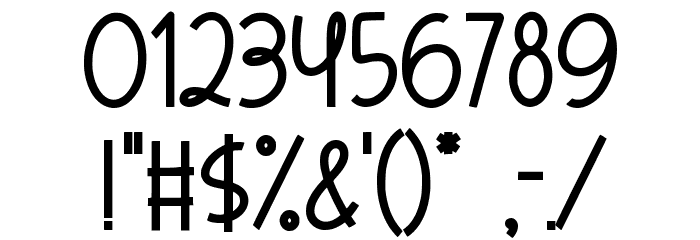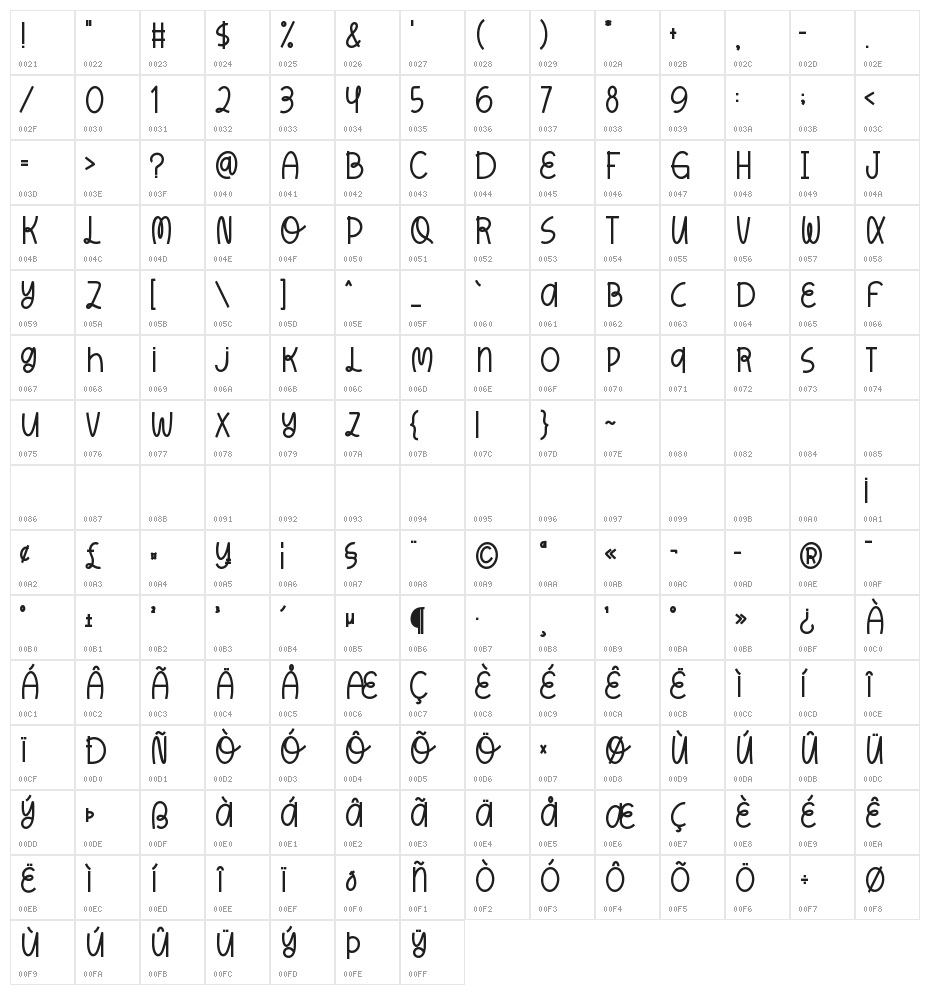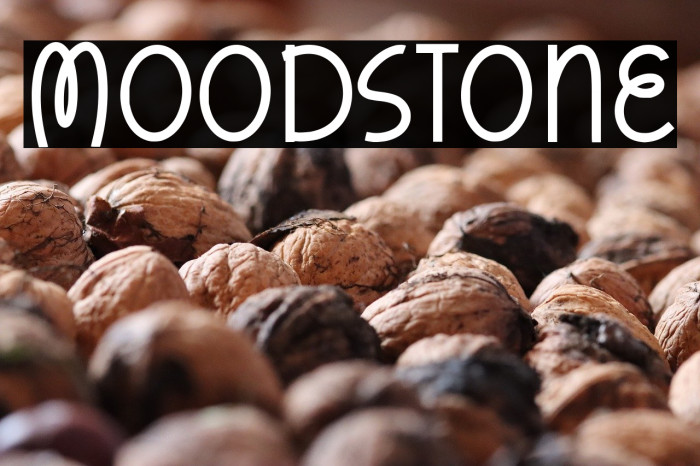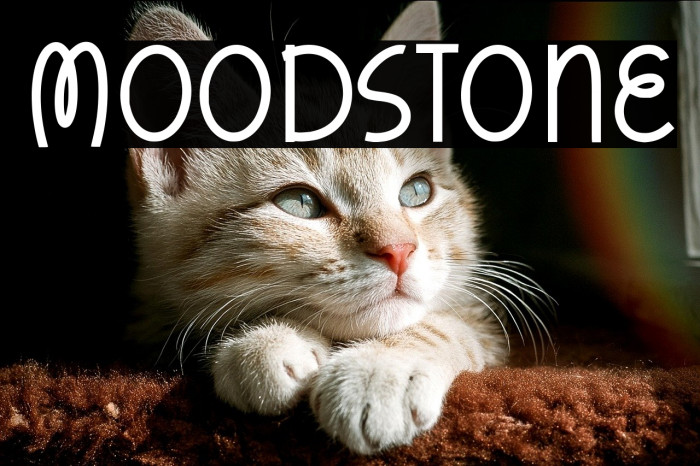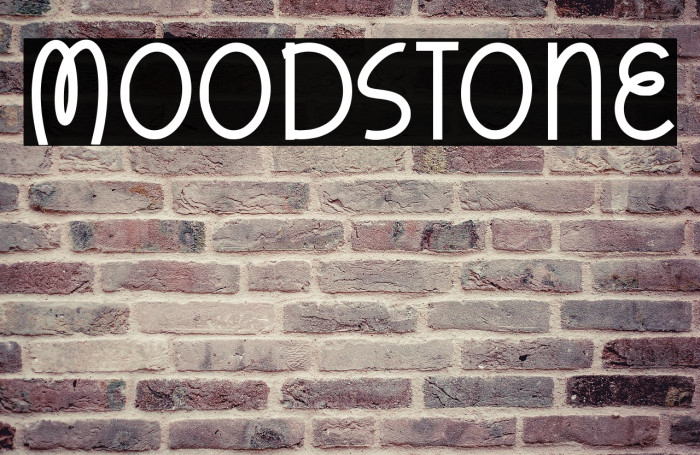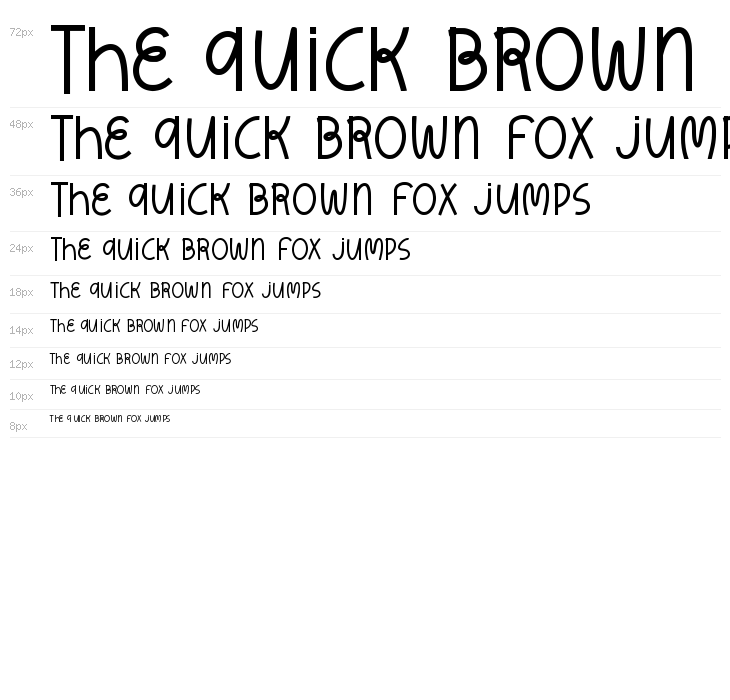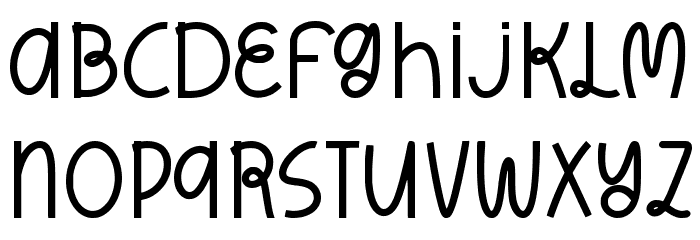
Moodstone Font
Moodstone Description
This font features a playful and quirky design with a unique blend of rounded and angular elements. The uppercase letters are bold and slightly condensed, giving them a strong presence, while the lowercase letters maintain a consistent style with a touch of whimsy. The numbers are distinct and easily readable, with a slight curve that adds to the overall playful aesthetic. Special characters are creatively designed, maintaining the font's cohesive look. The font's style is suitable for projects that require a fun and engaging appearance.
| Proposed Projects | Ideal for children's books, playful branding, creative posters, and casual invitations. |